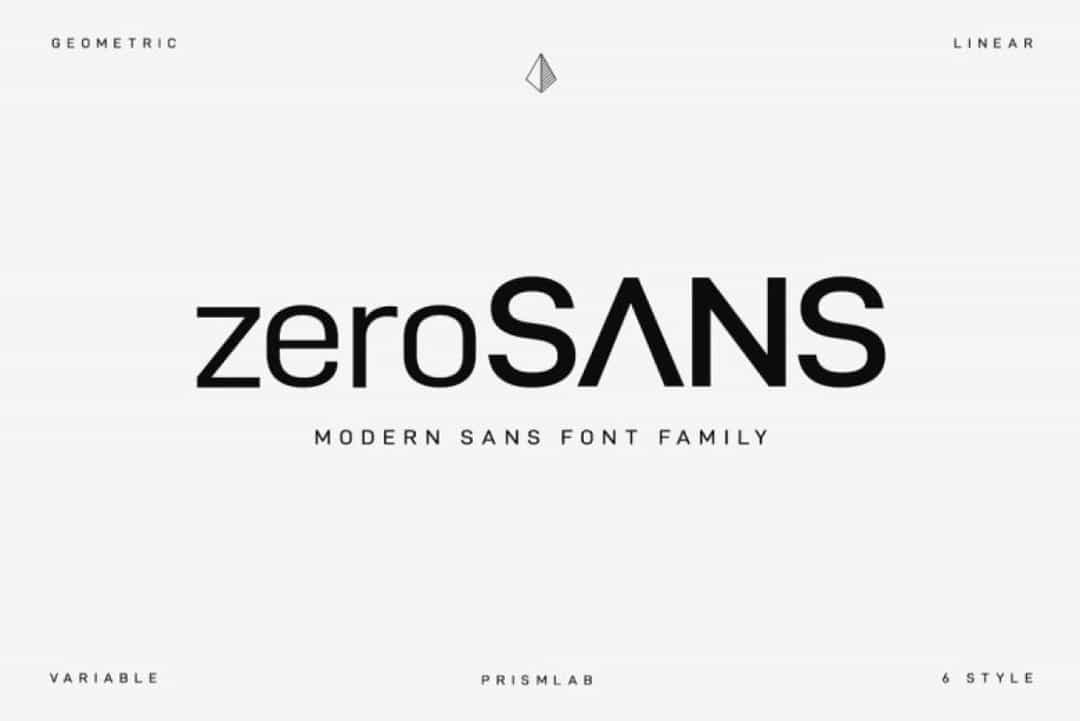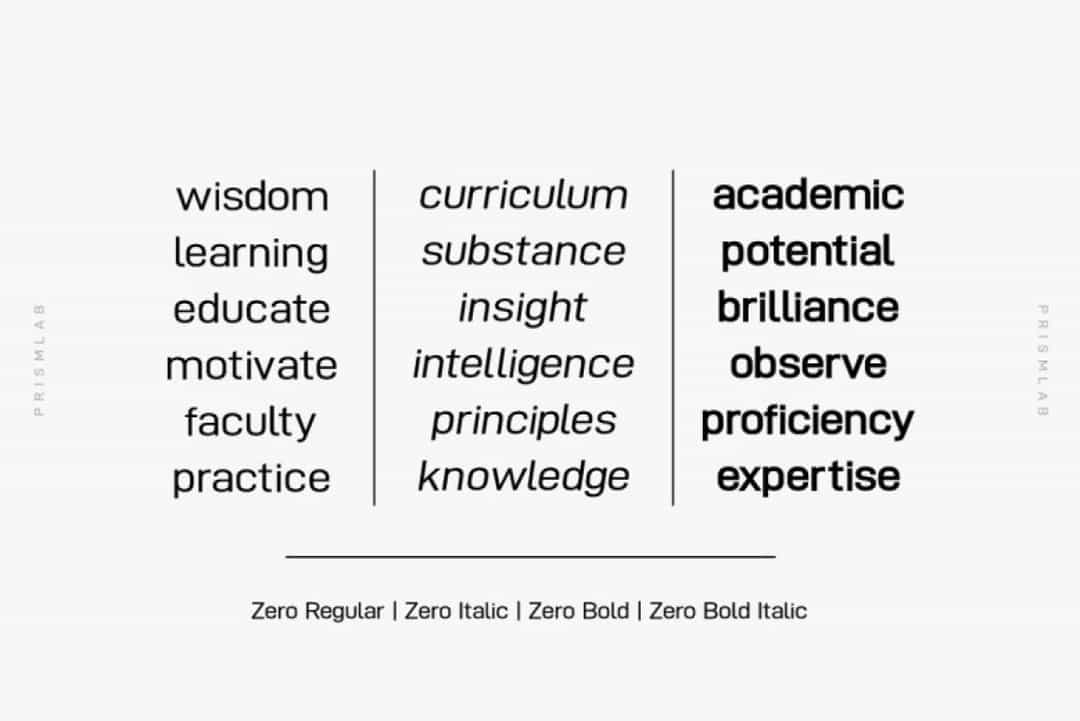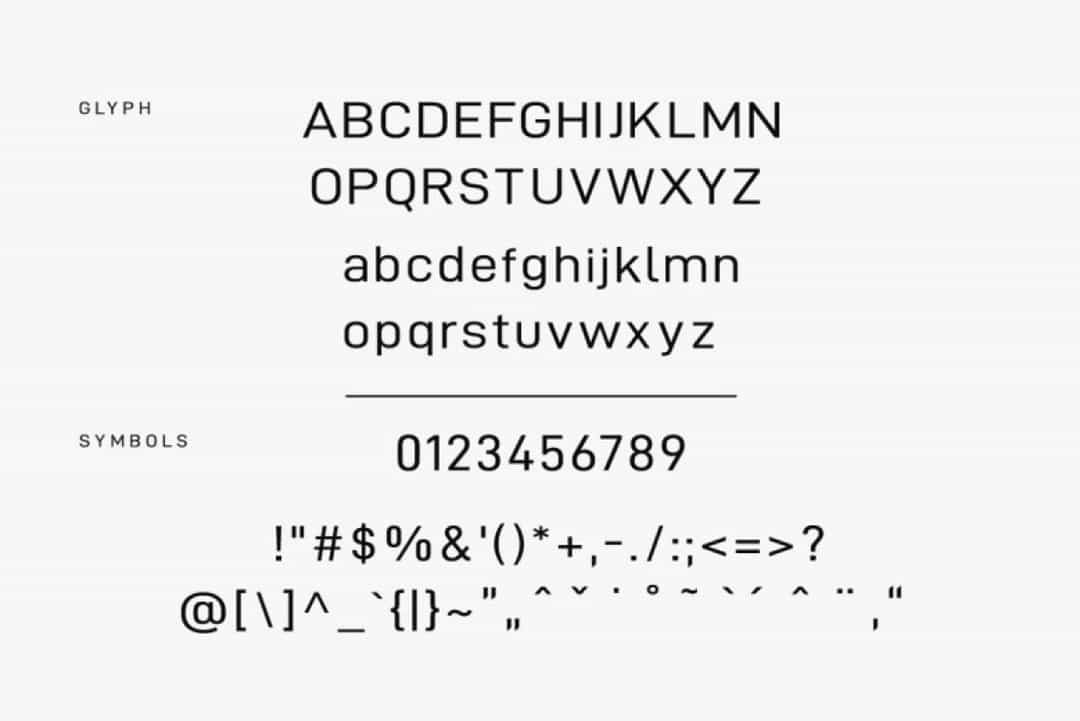
Zero is a clean and sophisticated Geometric Sans typeface based on strong characters of leaders. With a firm yet pointed and matte finish, Zero is a great fit for today’s enterprise and corporations.